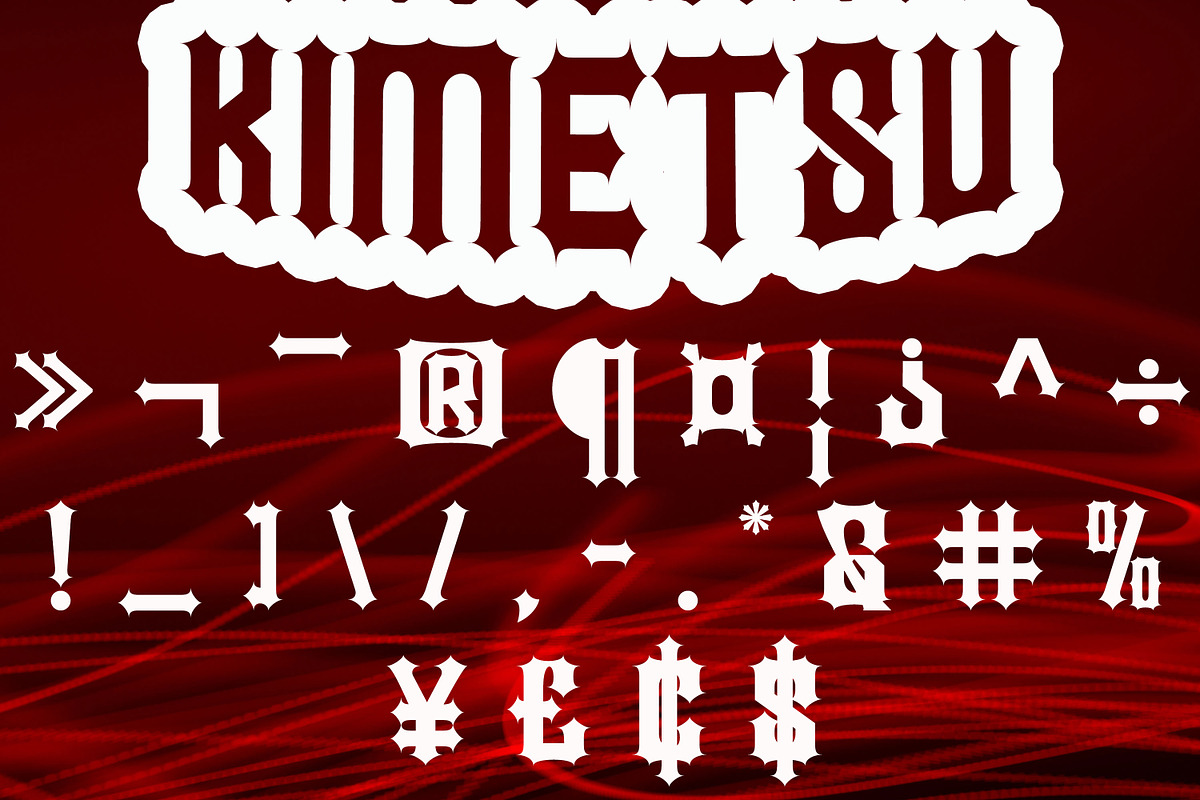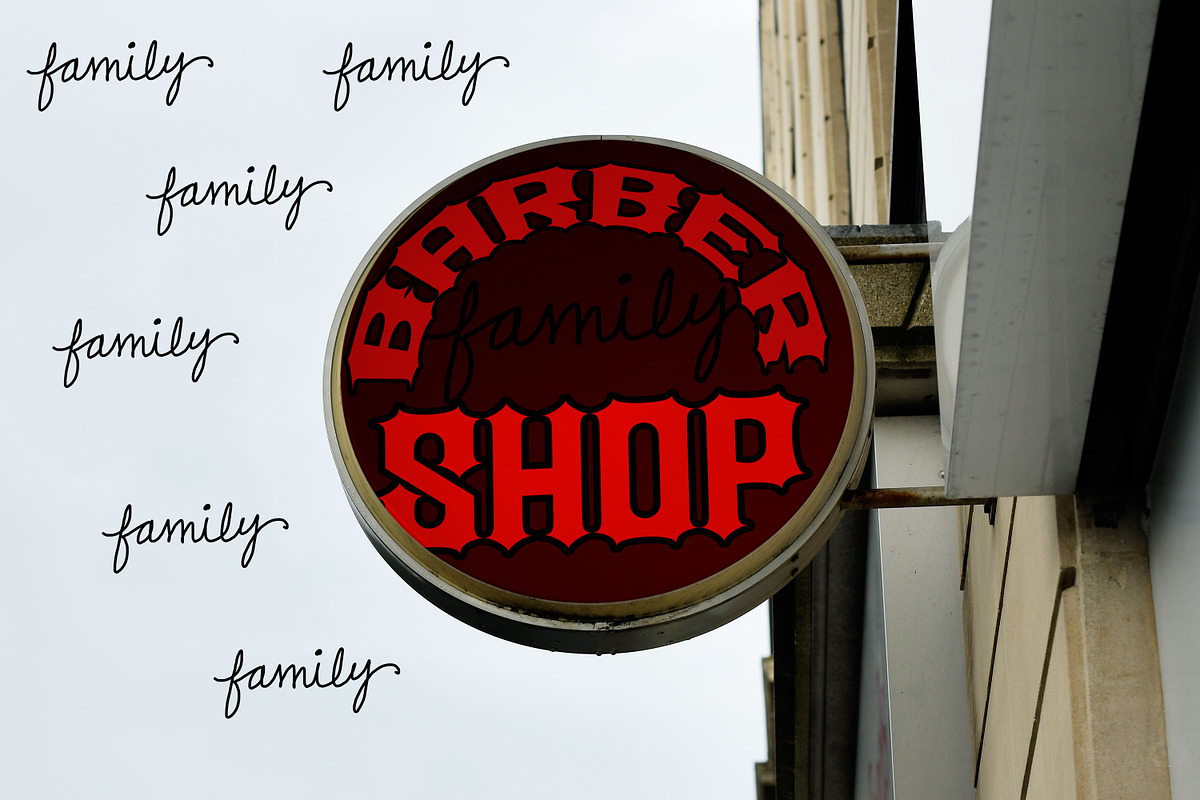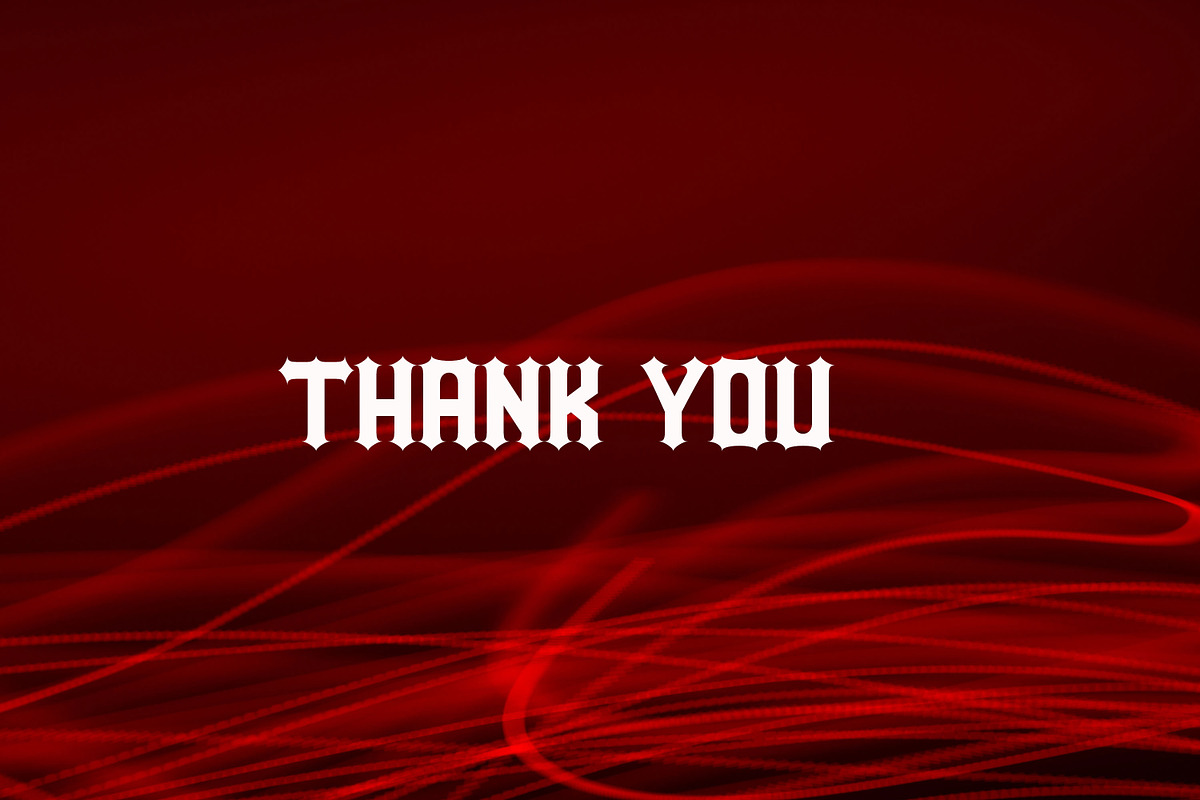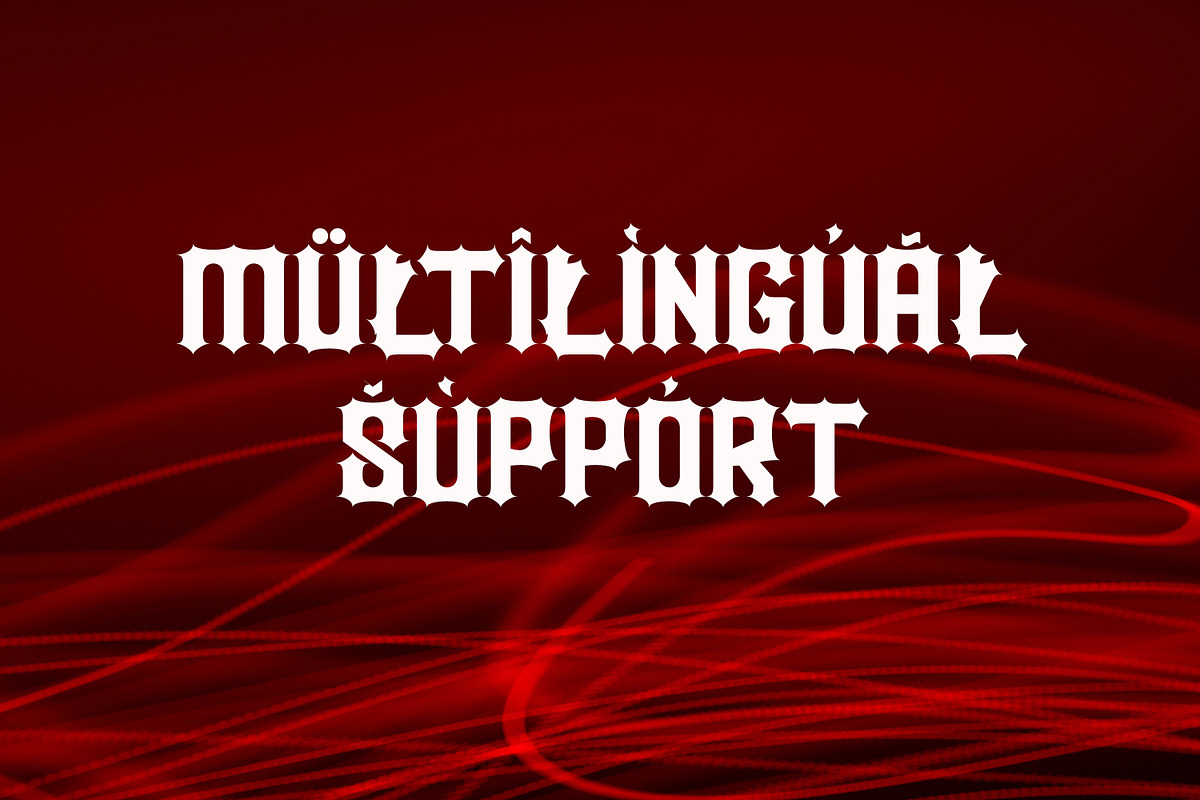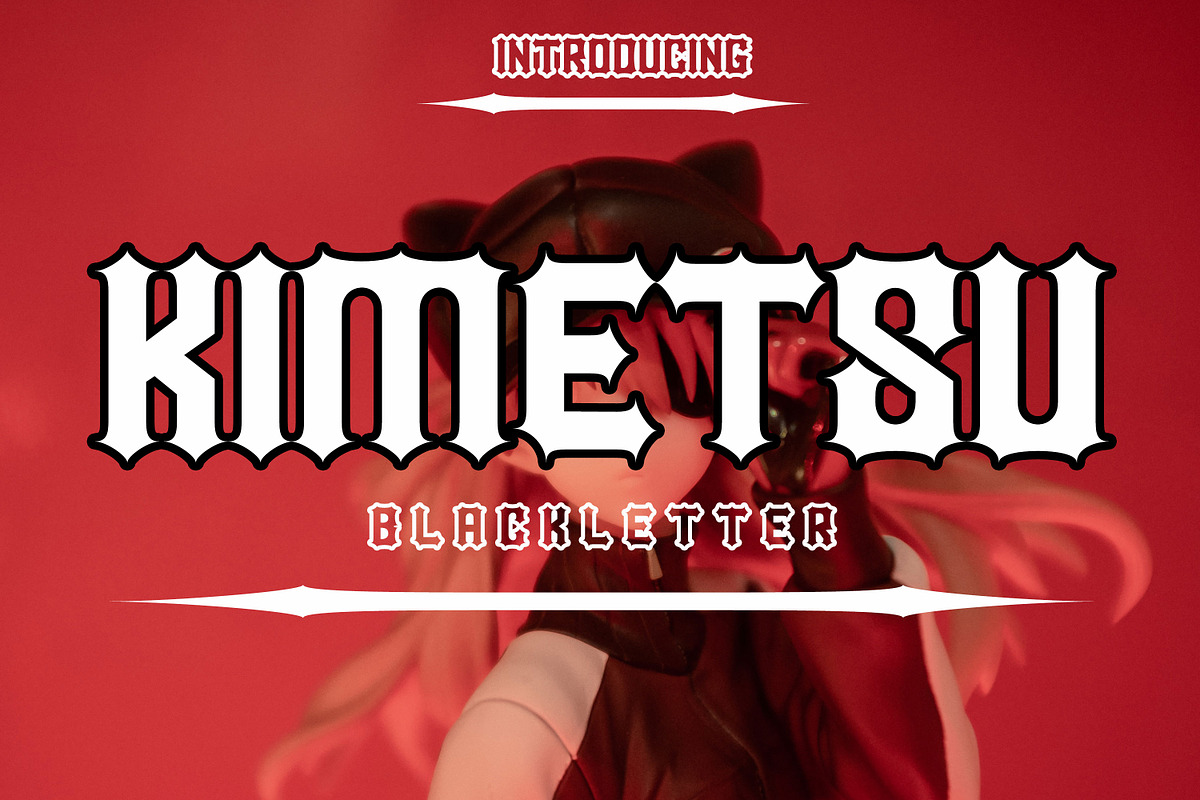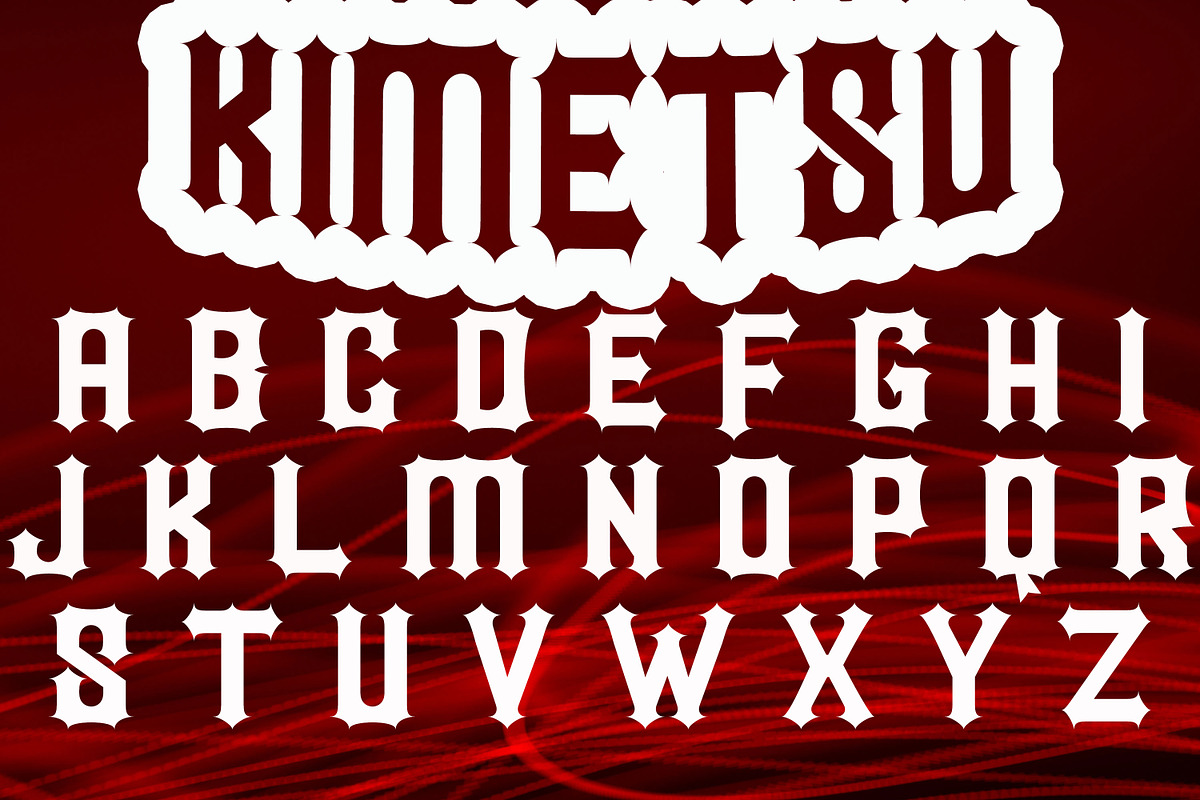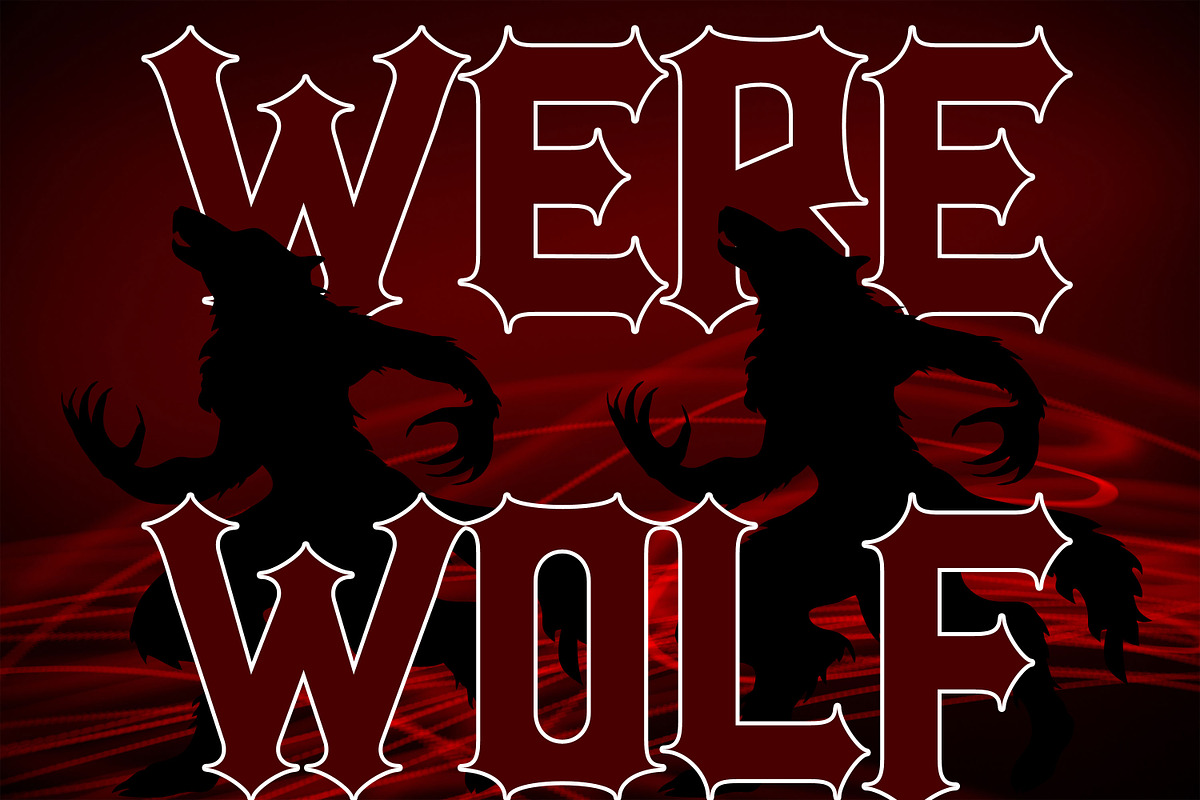
kimetsu
kimetsu This Fonts are perfect for: logos, branding, wedding invitations, business cards, greeting cards, posters, magazines, social media, proliferate fonts, planner prints and websites.